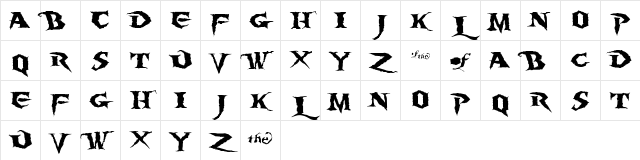
Burning Wrath Regular Free Font
Burning Wrath Regular
Designer: T. Lyle
Design Context for Burning Wrath
Burning Wrath is a composed and adaptable typeface that performs quietly and consistently across a wide range of design contexts.